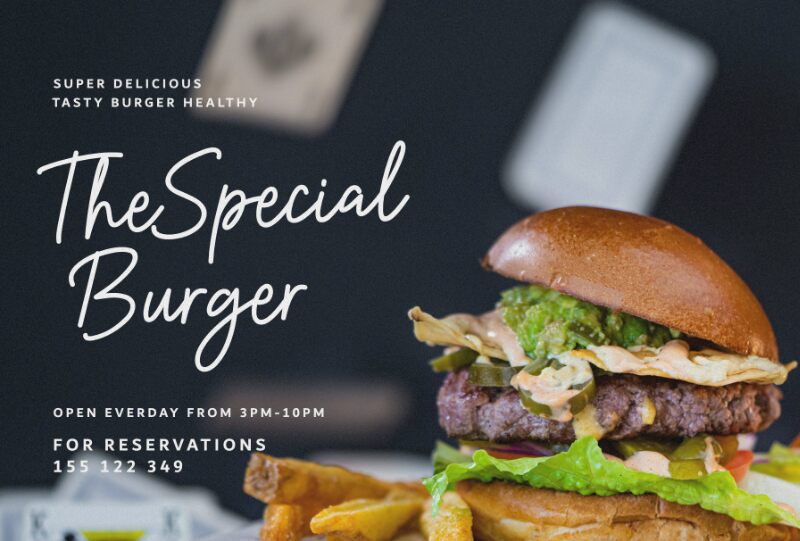
Katherine Thompson, a charming handwritten font crafted by Jimtype Studio, exudes a delightful sense of fluidity and warmth. With its distinctive light weight and graceful curves, this font effortlessly conveys a sense of natural elegance and personal expression. The organic, freeflowing strokes create a captivating visual narrative, evoking a whimsical, heartfelt atmosphere that can elevate a wide range of design projects.
This versatile font lends itself beautifully to branding and marketing initiatives, where its unique personality can help to establish a memorable and authentic visual identity. Additionally, Katherine Thompson's versatility makes it an excellent choice for editorial design, wedding stationery, and personal correspondence, where its charming aesthetic can add a touch of timeless sophistication.